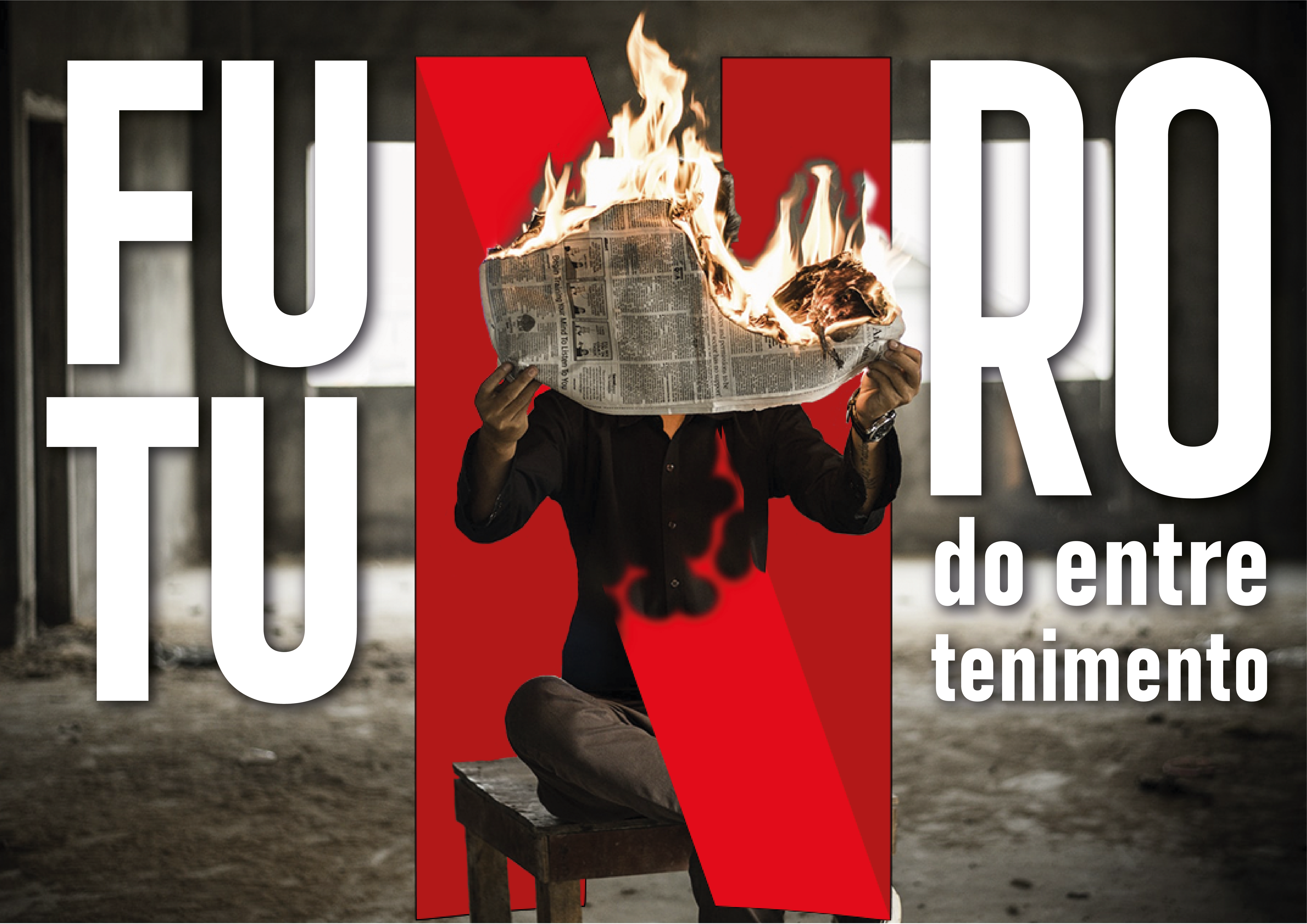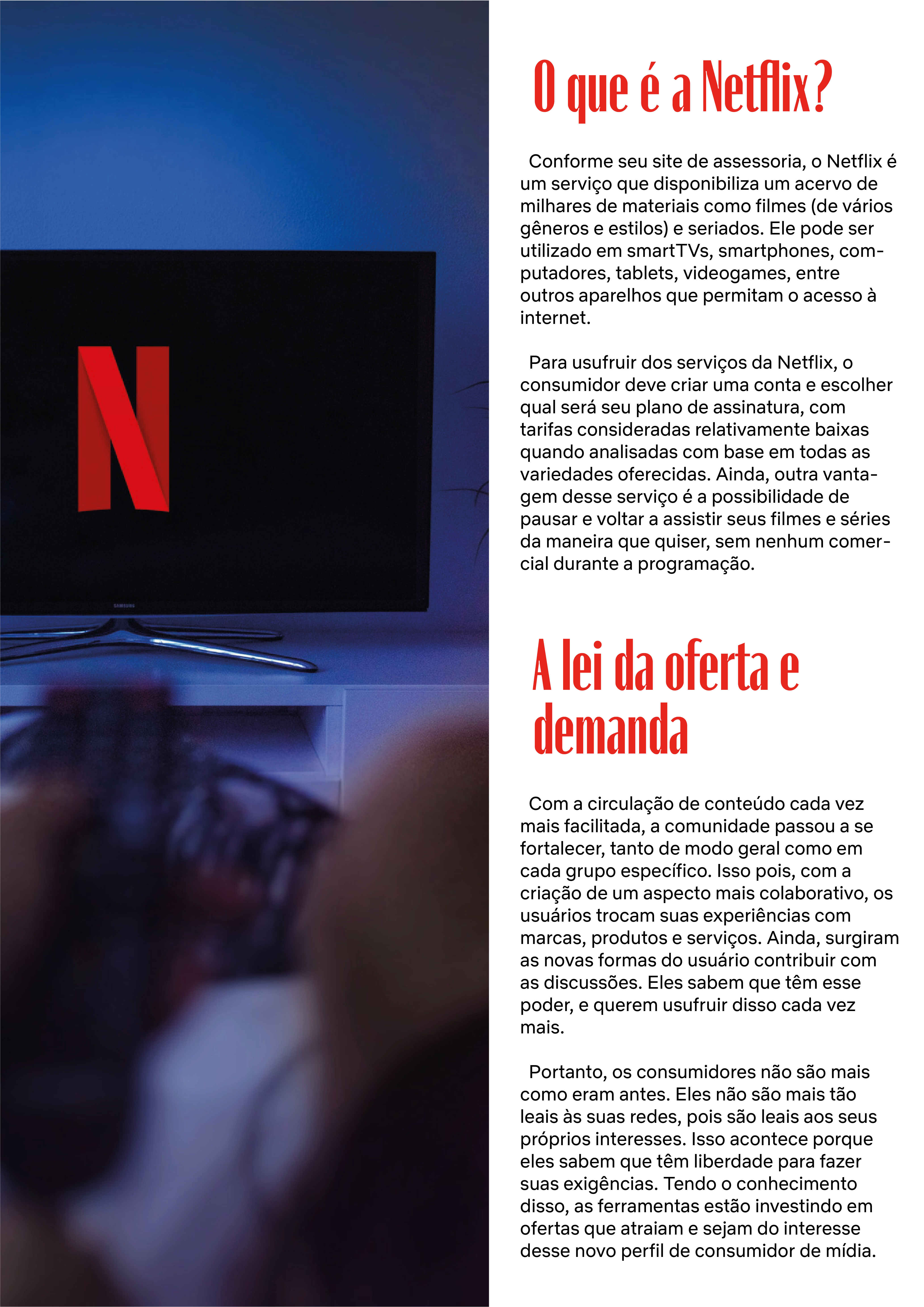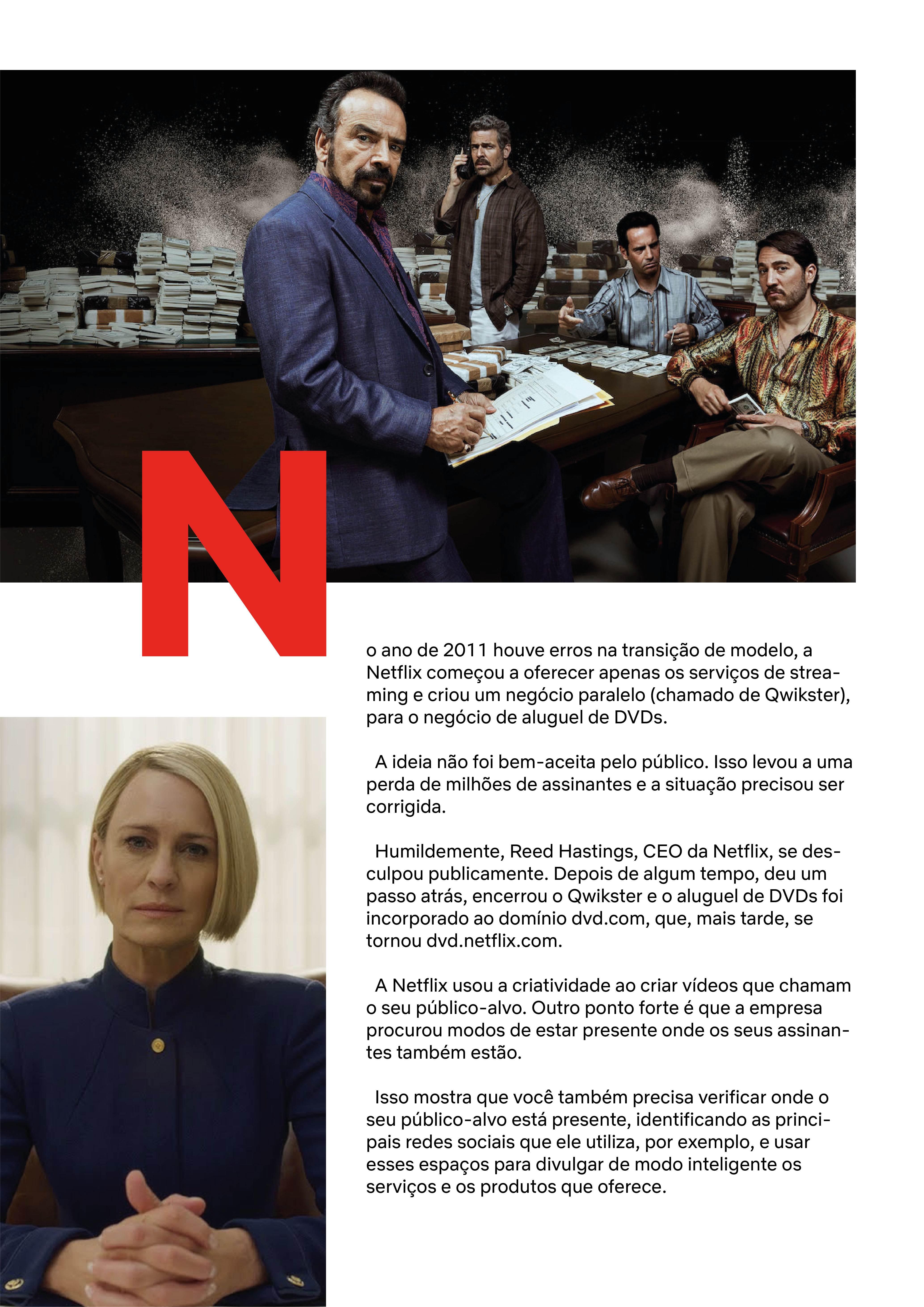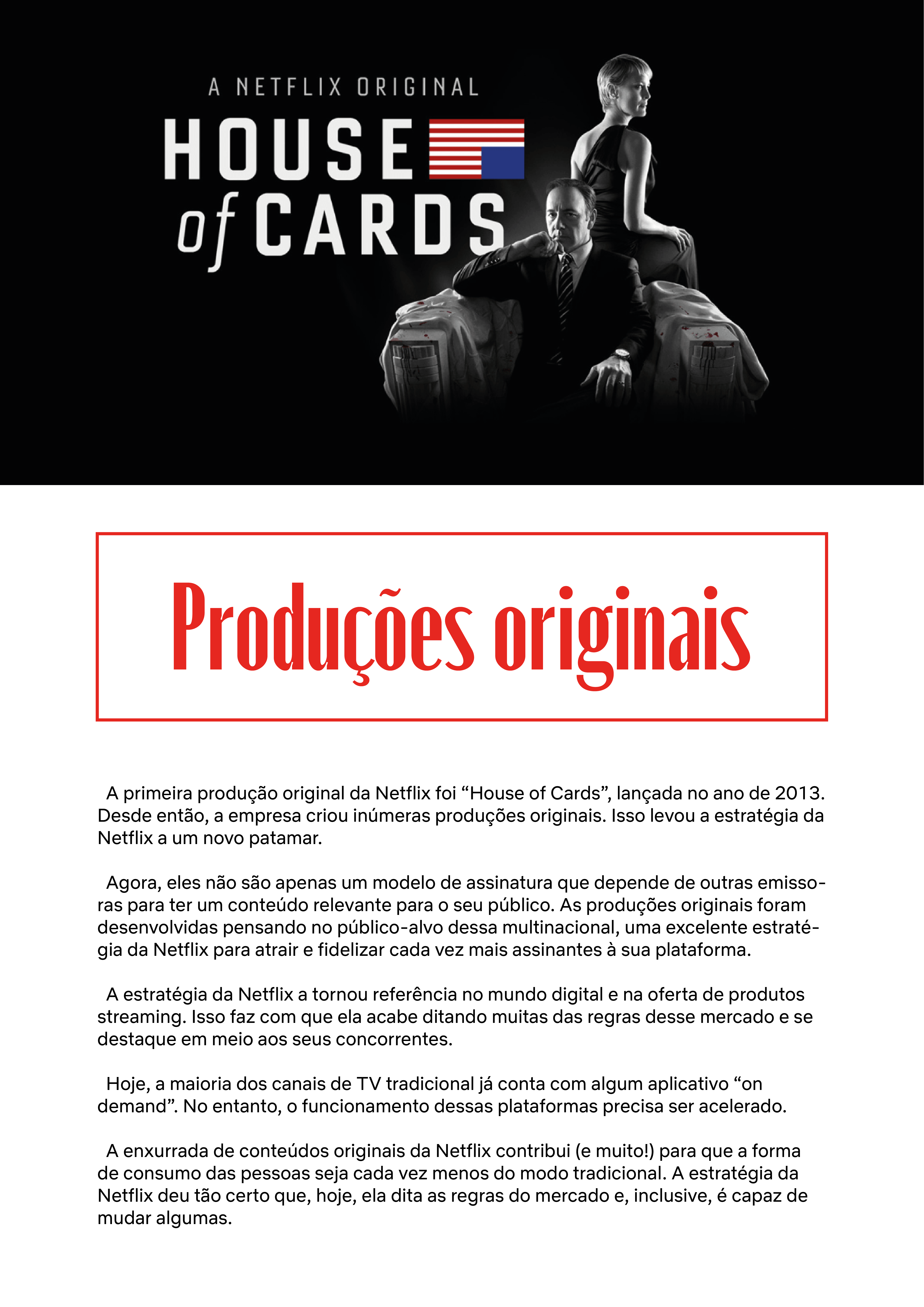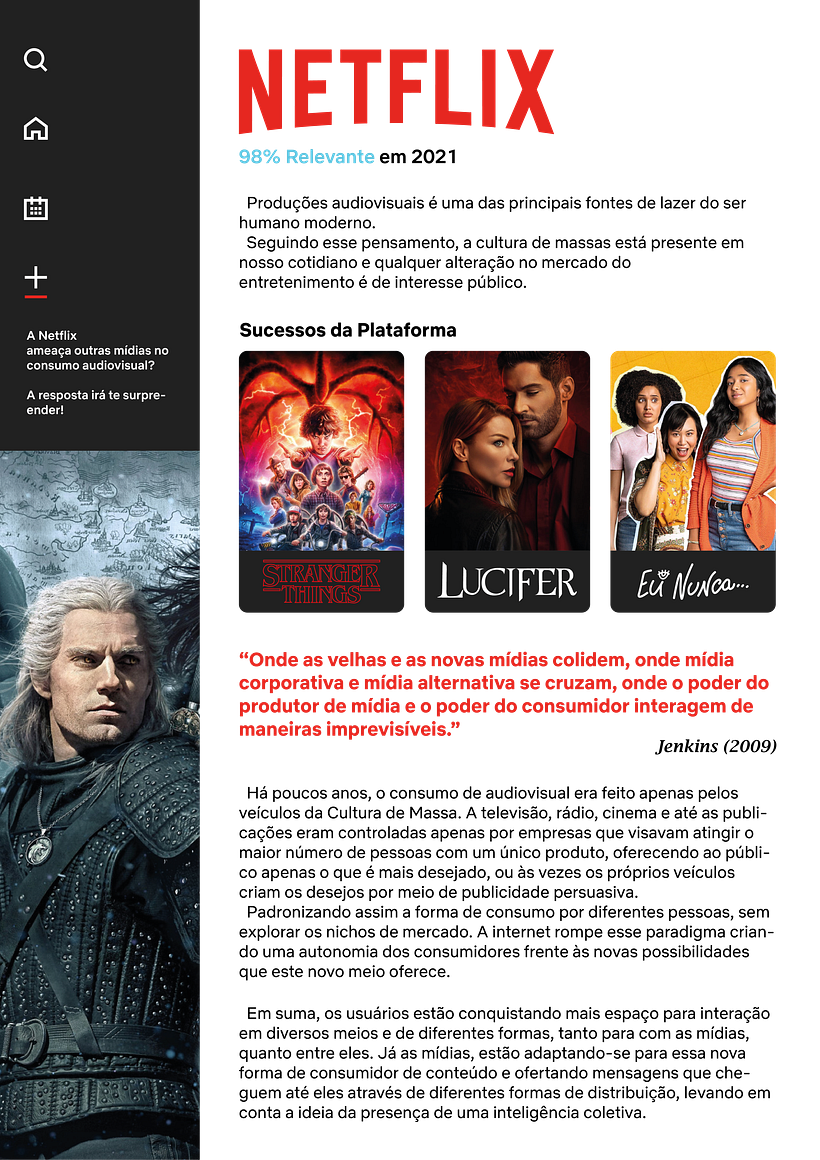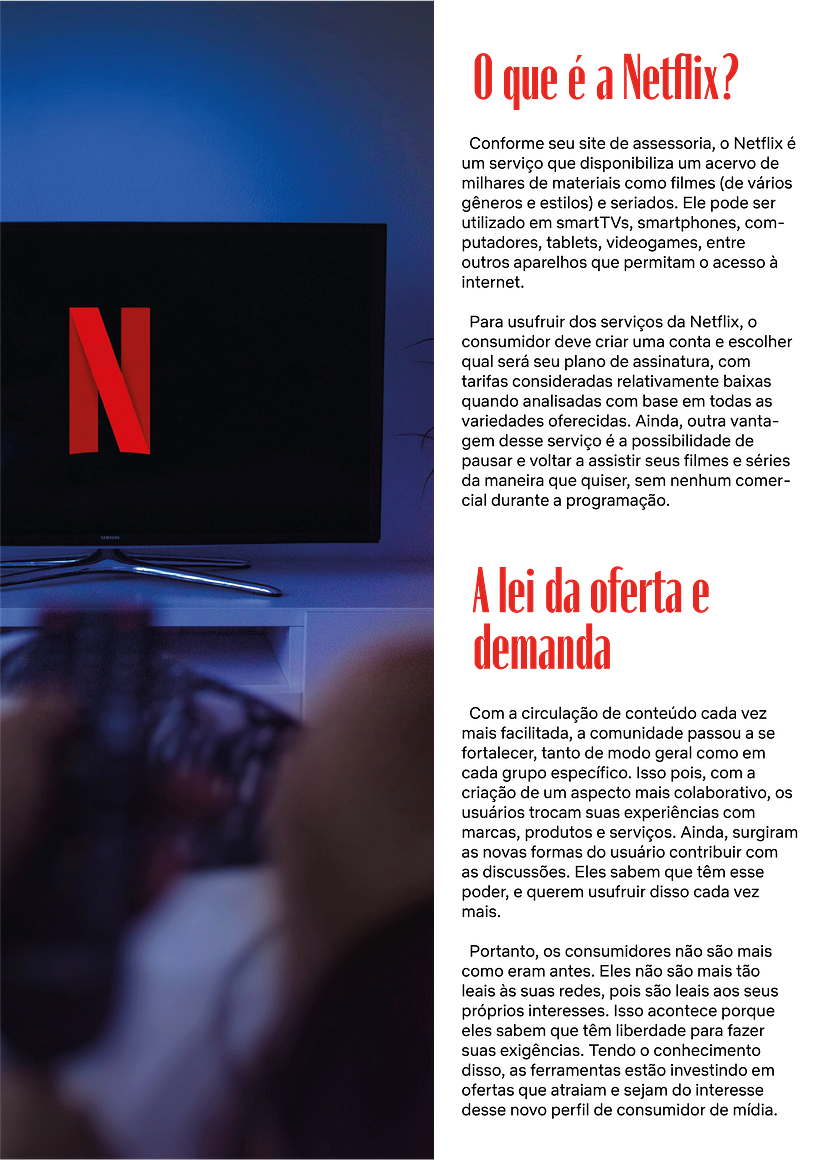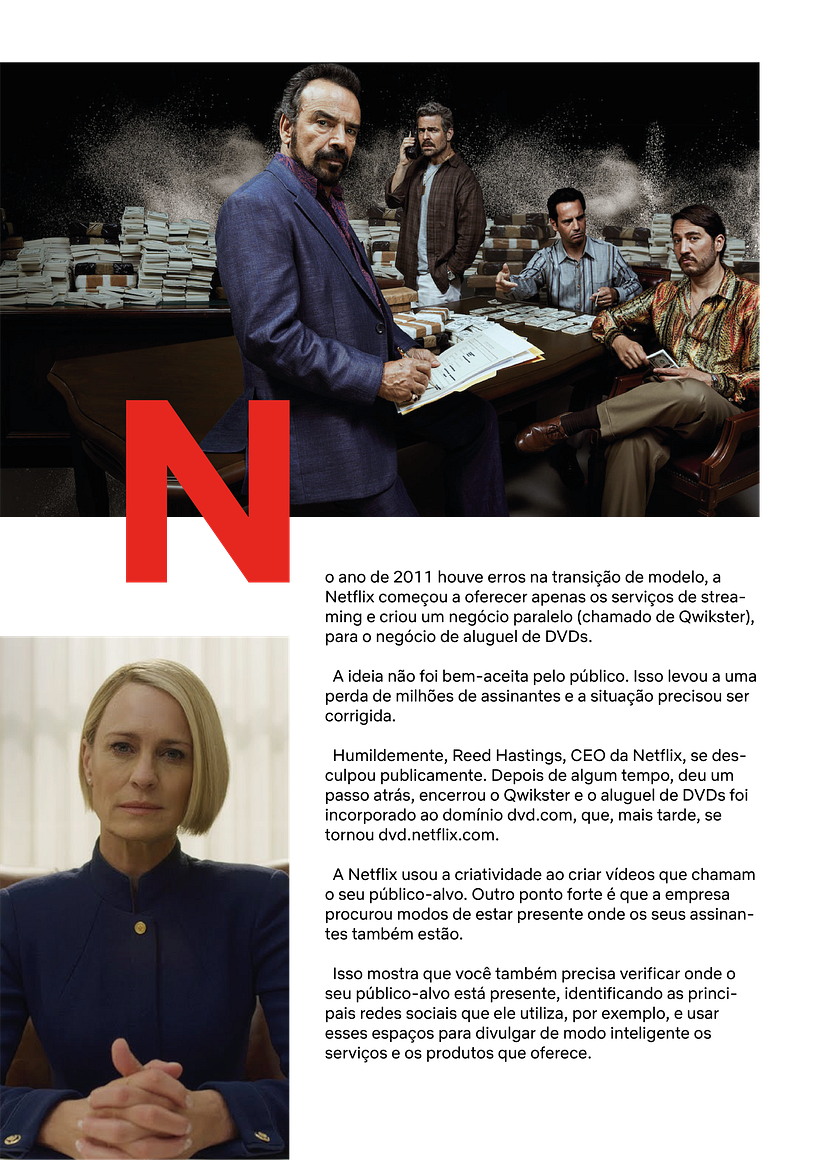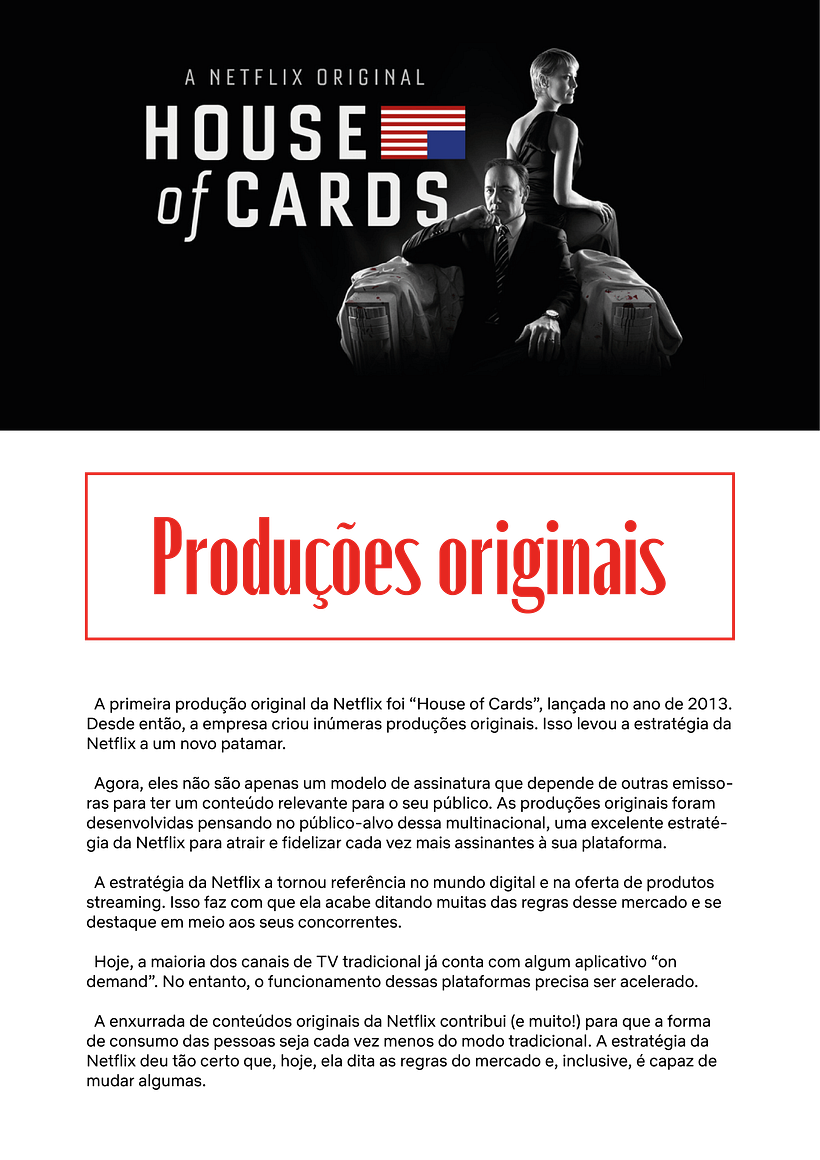
Apesar de não consumir a mídia (revistas), foi um ótimo exercício para pesquisar e por em prática a criatividade, sou um completo novato no meio de tipografia, todo feedback será fundamental para meus próximo passos, obrigado :)
Hi henrique! Thanks for your work. Magazines are a way for us to touch on all the fundamentals in the same project, I understand that you are unfamiliar but I appreciate your effort. You seem to have a lot of mastery of the tool which is a great start, but I see some things that can improve your typesetting. I have several comments so let's cut to the chase:
Column width On three double pages you used 5 different column widths. I didn't understand the editorial purpose of this choice, it's kind of exhausting for the reader's eye to have to recalibrate for column width on each page. If this served some purpose of the content — for example to differentiate an auxiliary text from a main text — it would still make sense, but here it seems very gratuitous. As a rule, the column of text you have on the last page is very wide. I think it looks more like a website than a magazine.
Retreat vs. Line Jump You are using indentation (a space on the first line) and at the same time line skipping, but this is redundant as both features have the same function: Signaling the reader that this is a new paragraph. You can use line jump OR indent, both are meaningless.
A good indentation If you are going to use indentation, also remember that the first paragraph doesn't need indentation , as it doesn't have to separate from anything that comes before it. And finally, the indent you used is soooo small. In general I like to use indent a value that is equal to leading multiplied by 1.5, for example if your running text has 12pt leading then the indent would be 18pt.
Word Break Your splash page is hard to read. Practice the habit of reading what you compose after composing it, or asking someone you've never seen try to read it aloud to you. To me, your splash looks like it says FUNROTU or FUROTON.
Typographic palette I felt very disconnected choosing splash fonts for the rest of the story. That condensed Sans Serif of splash never appears again, it even seems that splash is an advertisement, something separate from the content. Could splash use its high contrast sans? I don't know if it works, but I think it needs to be more integrated. And what font is the italic serif in "Jenkins 2019"? She doesn't show up again either, and that feels really weird, like it's a mistake.
Capitulate By chance you used a big red letter N as a drop cap. It looked like a logo, because it's too far from the paragraph. Just give an arrival to the paragraph that I think will work better!
Hierarchy The title ORIGINAL PRODUCTIONS is huge. It almost looks like the main title of the story, and it's the only one that goes inside a rectangle. Why so much prominence for this? The Netflix logo followed by 98% relevant I couldn't understand if it's a title or an illustration. You think that everything that has to be clear to your reader, that your role as a designer is to make everything clear and unfussy, and that we achieve with three things: Consistency, consistency, and consistency. All your decisions must have a reason and must serve the reader :)
Teacher PlusHi henrique! Thanks for your work. Magazines are a way for us to touch on all the fundamentals in the same project, I understand that you are unfamiliar but I appreciate your effort. You seem to have a lot of mastery of the tool which is a great start, but I see some things that can improve your typesetting. I have several comments so let's cut to the chase:
Column width
On three double pages you used 5 different column widths. I didn't understand the editorial purpose of this choice, it's kind of exhausting for the reader's eye to have to recalibrate for column width on each page. If this served some purpose of the content — for example to differentiate an auxiliary text from a main text — it would still make sense, but here it seems very gratuitous. As a rule, the column of text you have on the last page is very wide. I think it looks more like a website than a magazine.
Retreat vs. Line Jump
You are using indentation (a space on the first line) and at the same time line skipping, but this is redundant as both features have the same function: Signaling the reader that this is a new paragraph. You can use line jump OR indent, both are meaningless.
A good indentation
If you are going to use indentation, also remember that the first paragraph doesn't need indentation , as it doesn't have to separate from anything that comes before it. And finally, the indent you used is soooo small. In general I like to use indent a value that is equal to leading multiplied by 1.5, for example if your running text has 12pt leading then the indent would be 18pt.